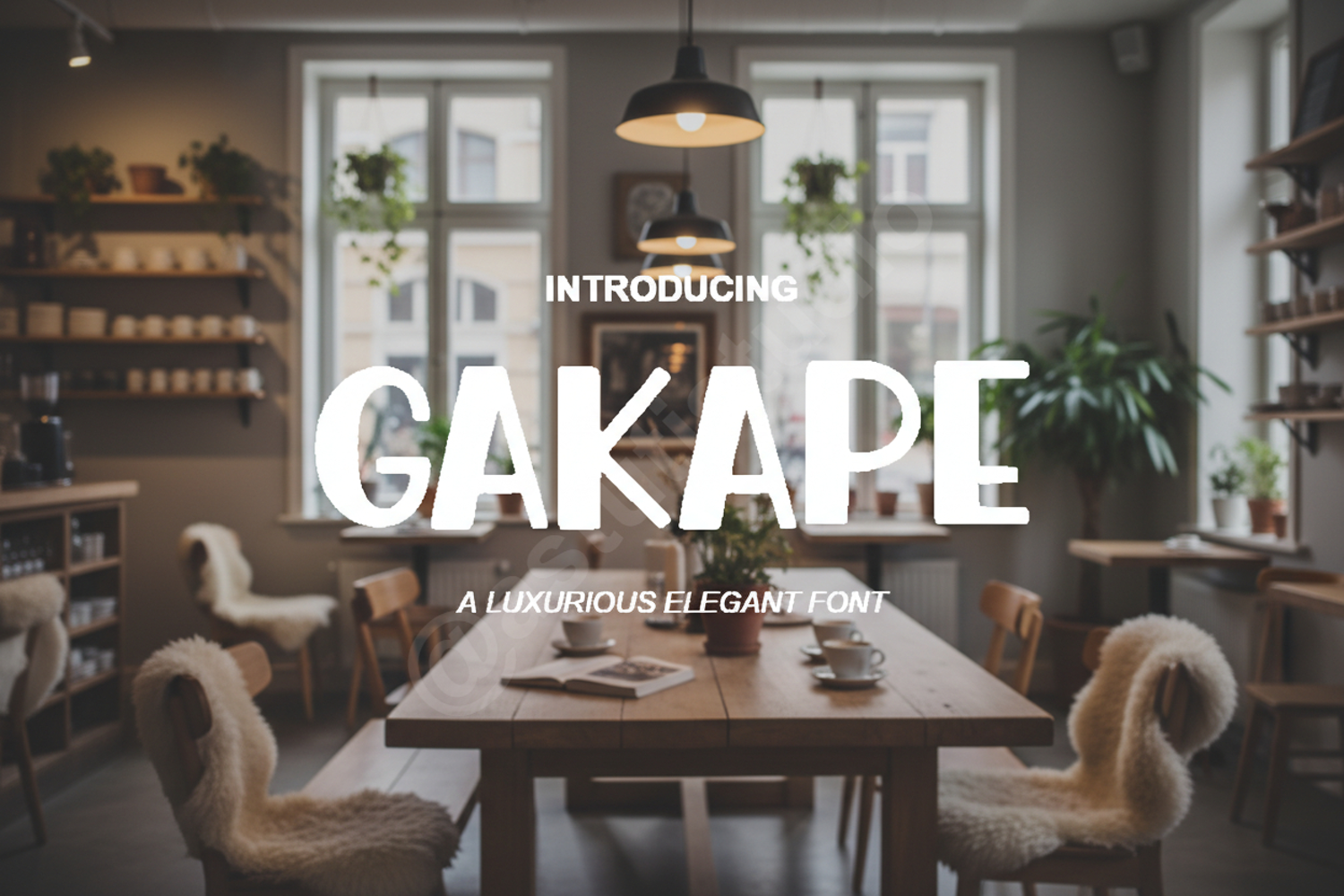
Gakape - Bold Modern Sans Serif Typeface
Gakape
Gakape is a premium display typeface meticulously crafted to bring a touch of modern sophistication to your creative projects. With its clean lines, balanced proportions, and striking presence, Gakape is designed for designers who demand both style and readability. Whether you are building a brand from scratch or looking for the perfect headline font, Gakape offers the versatility and professional edge needed to make a lasting impression.
- Branding and Visual Identity: Create memorable logos and cohesive brand guidelines.
- Editorial Design: Perfect for high-impact magazine headers and bold titles.
- Social Media Graphics: Stand out on Instagram, Pinterest, and digital marketing assets.
- Advertising: Ideal for posters, billboards, and promotional banners.
- Product Packaging: Add a premium, contemporary feel to labels and retail boxes.